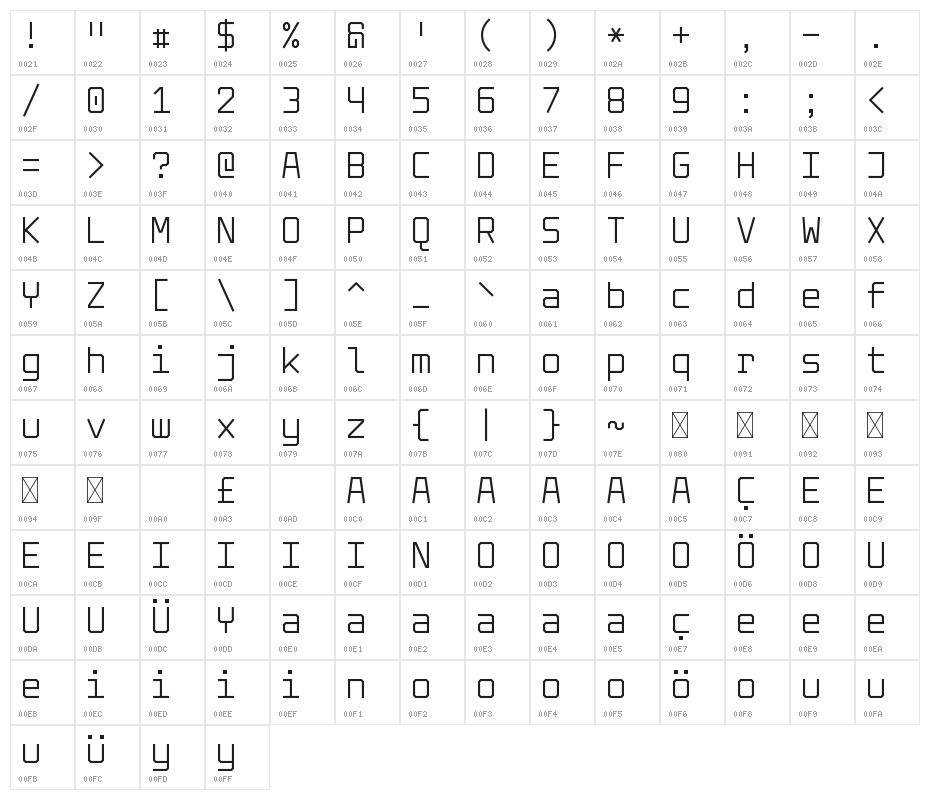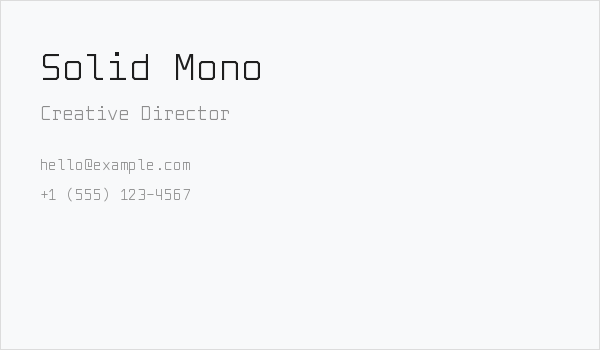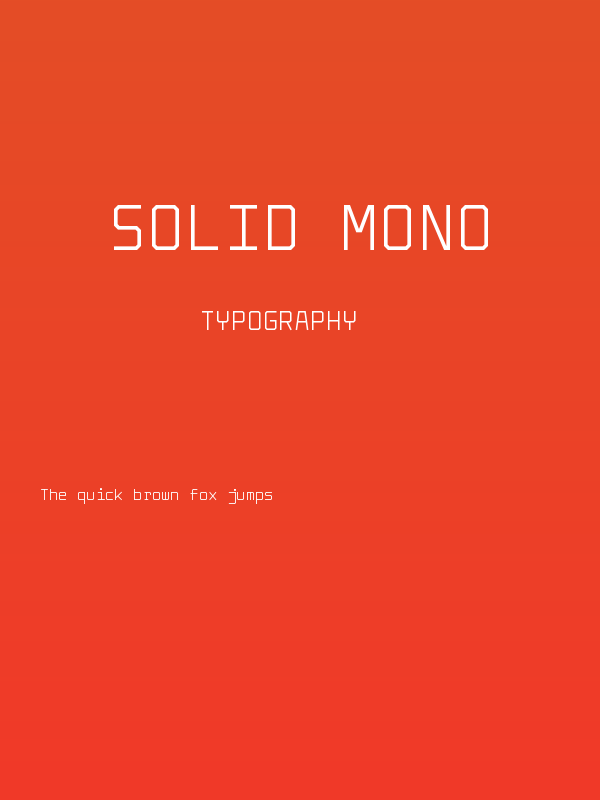
Solid Mono Font
Solid Mono Description
This font features a clean, geometric design with a monospaced structure, making it ideal for coding and technical applications. The characters are evenly spaced, providing a uniform appearance that enhances readability. The straight lines and right angles give it a modern and minimalist feel, while the consistent stroke width maintains clarity across all sizes. The uppercase and lowercase letters are distinct yet harmonious, and the numerals are clear and easy to distinguish. Special characters are designed with the same precision, ensuring they integrate seamlessly with the rest of the typeface.
| Use Case | Coding, Technical documentation, User interfaces |
| Proposed Projects | Ideal for coding, technical documentation, and any project requiring a clean, modern typeface. |